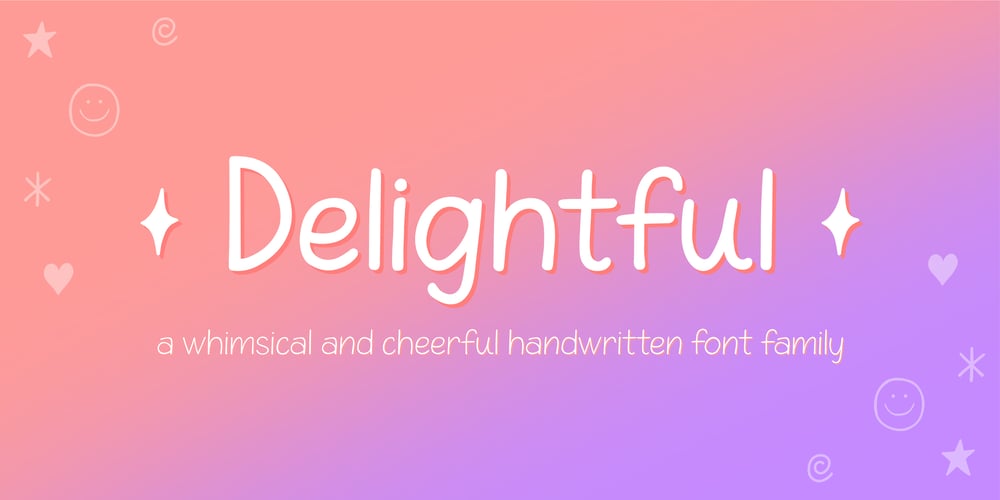
Delightful
Delightful font
Delightful Font Family was designed by Jessie Parker and published by Jessie Makes Stuff. Delightful contains 7 styles and family package options. Delightful is a whimsical and cheerful handwritten font family of varying weights and widths. This typeface is like if Comic Sans had a cousin who studied abroad one summer and now wears scarves to look more grown up, even though inside she’s still the same, sweet marshmallow she always was.The letters were inspired by my handwriting on a good day – slowed down, legible, and intentionally drawn. I even threw in some of my favorite doodles as alt characters because the set wouldn’t be complete without them. And the name was inspired purely by how it feels when I see it – and by my word of the year, delight.Delightful is ideal for anyone who wants to include a bit more warmth and a personal touch with their messaging. It’s friendly and non-threatening, and will enhance personal projects or professional ones alike – whether you’re a designer, an Instagram influencer, or you need to create some flyers for the local Mom ‘n Pop Shop.There are two versions of this font. The original style is slightly more rounded and gets chubbier as you increase its boldness, and the stretched style is like a condensed version, except it’s been stretched taller rather than squished narrower.I hope you delight in it as much as I do!